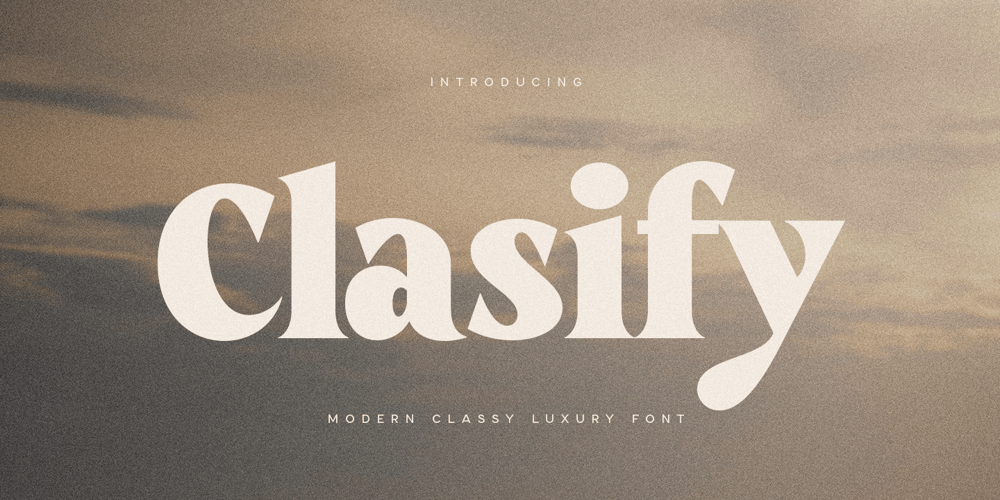
Clasify Font Family was designed by Zamroni Hamzah and published by Sensatype Studio. Clasify contains 1 styles and family package options. Clasify, a Cinematic Luxury Modern Font is a Modern Display font for Luxury, Elegant, and Cinematic Logo and Branding needs, with Cool style touch, font that you can combine to get any variations and unique shapes easily just in seconds. It is a serif display font with moderate contrast that perfect for branding projects, logo, wedding designs, social media posts, advertisements, product packaging, product designs, label, photography, watermark, invitation, stationery, and any projects, it makes with a high level of legibility.What’s Included: Clasify font Lowercase & Uppercase Character set A-Z Numerals & Punctuation Accented Characters (West Europe) Works on PC & Mac Recommended using Adobe Illustrator or Adobe Photoshop. Wish you enjoy our font. ๐